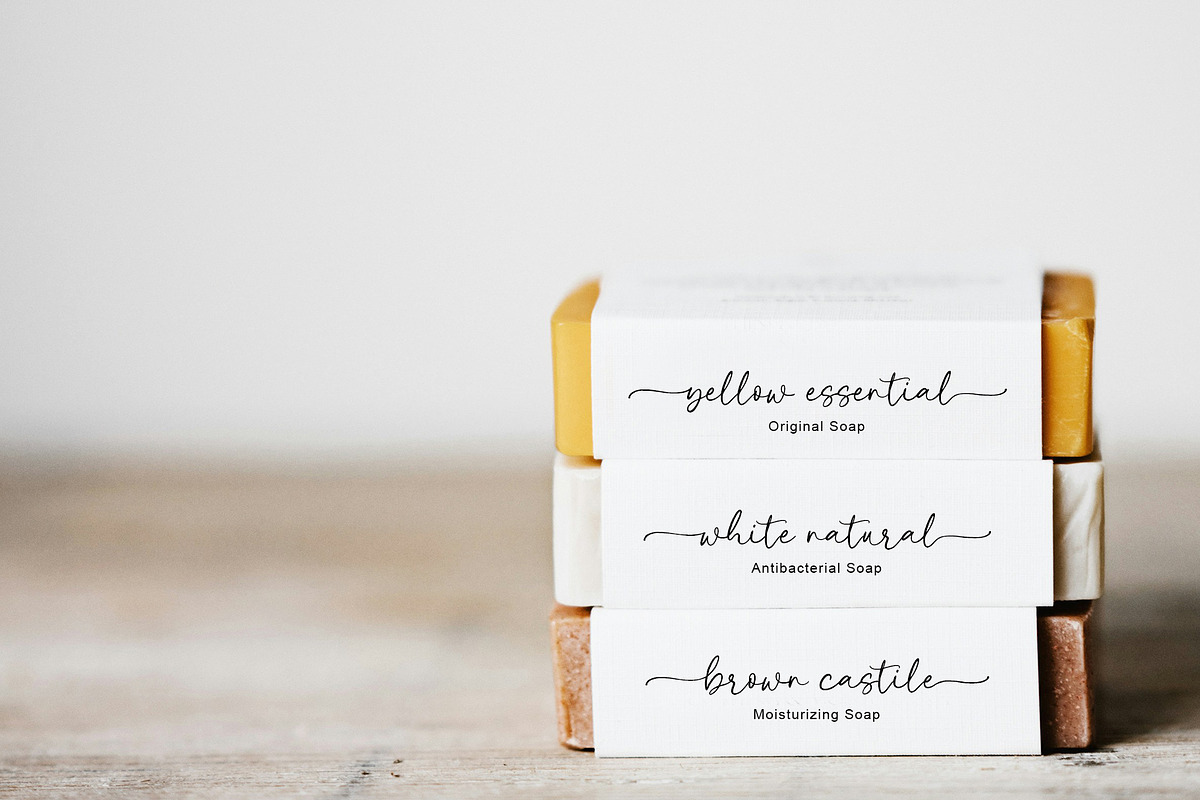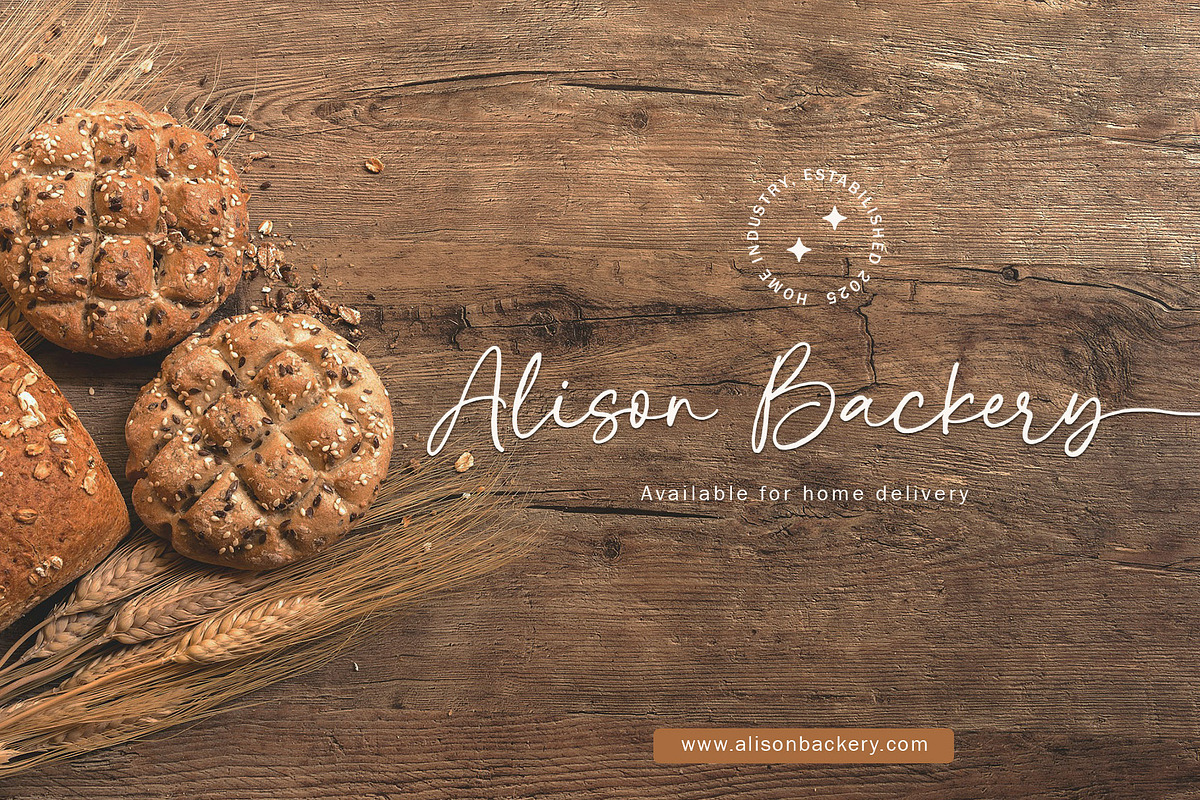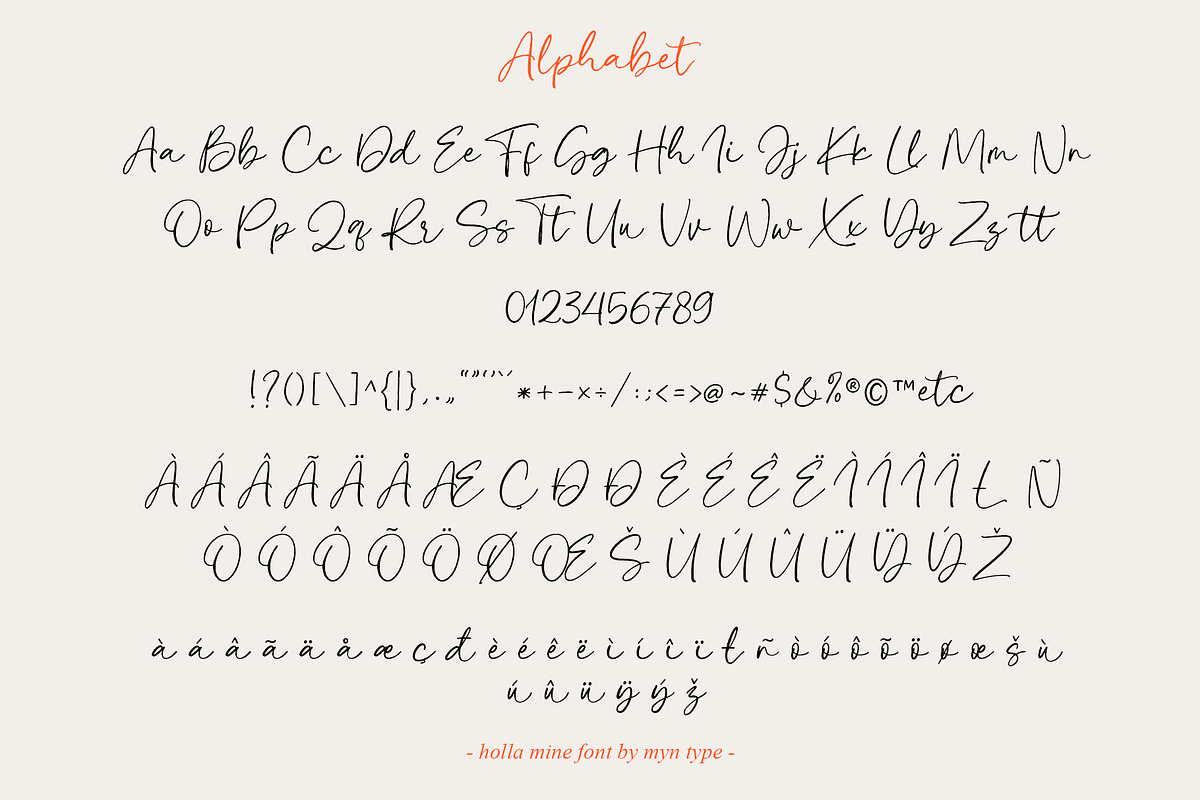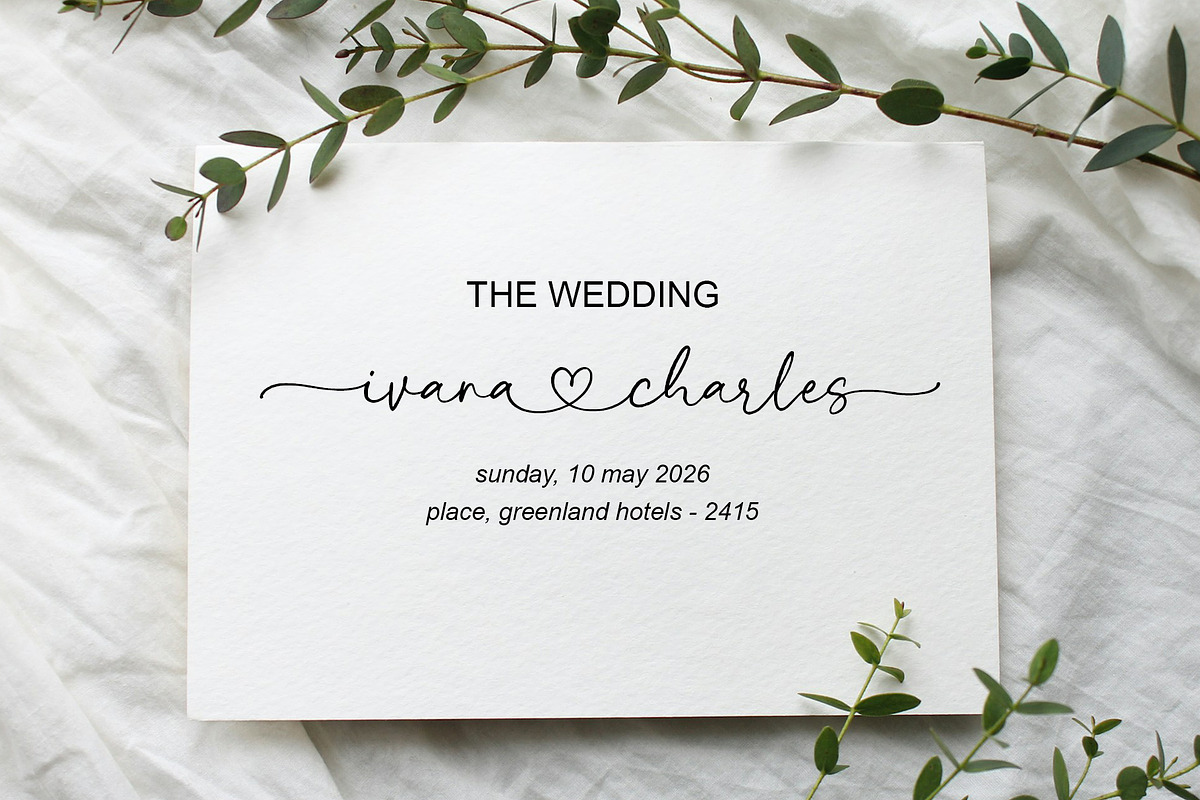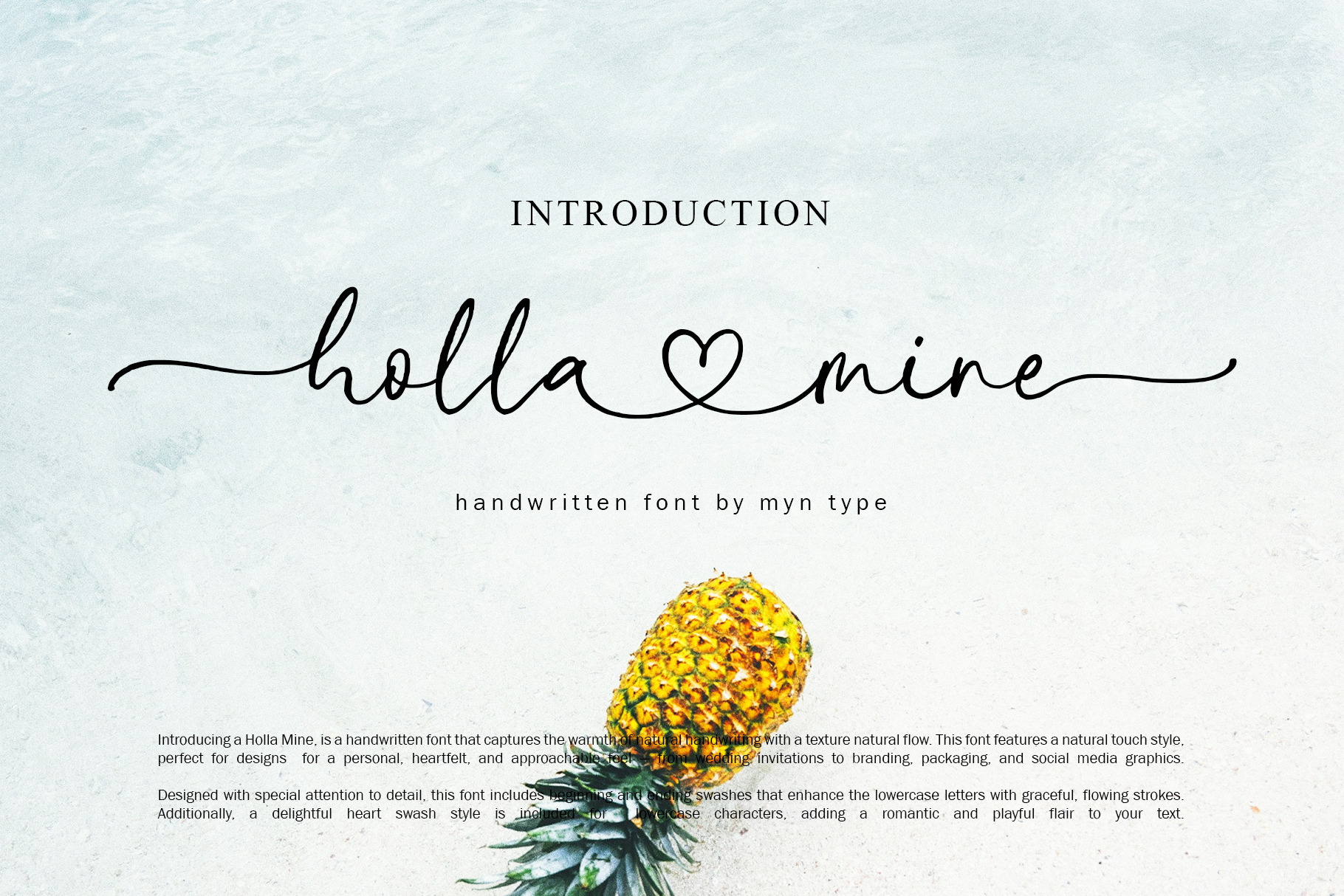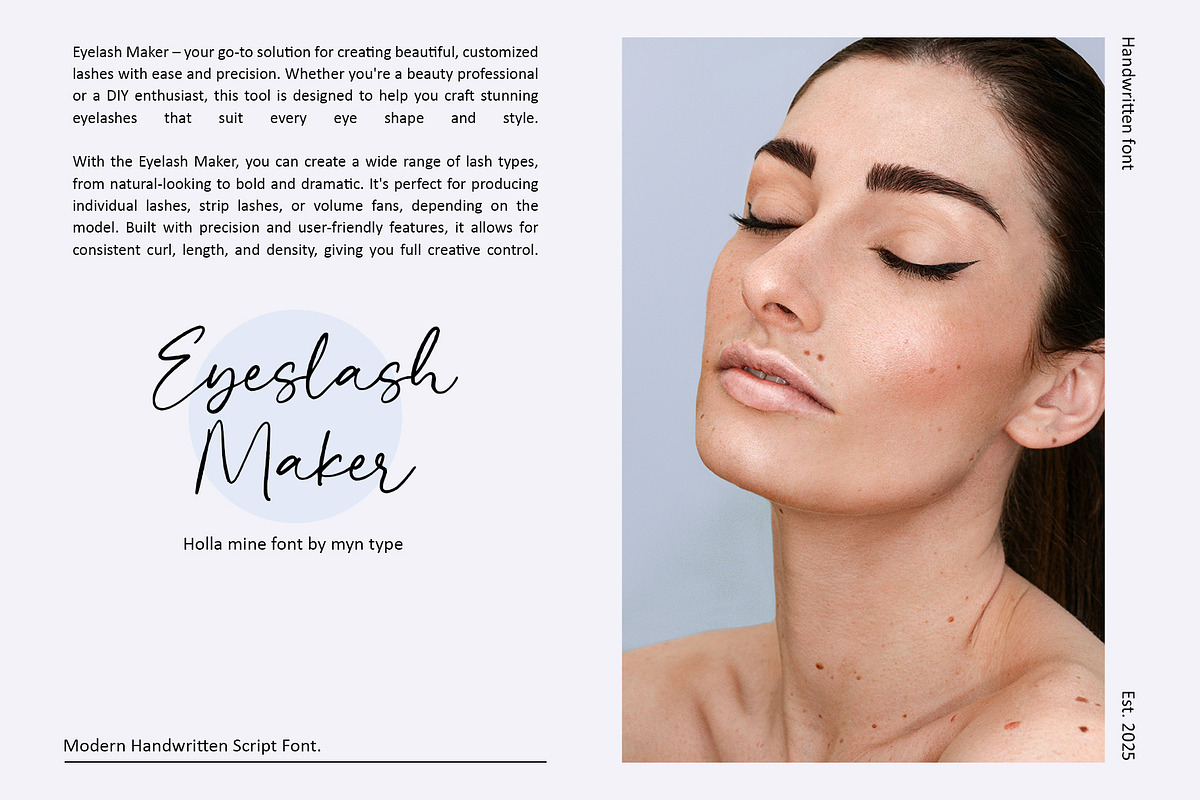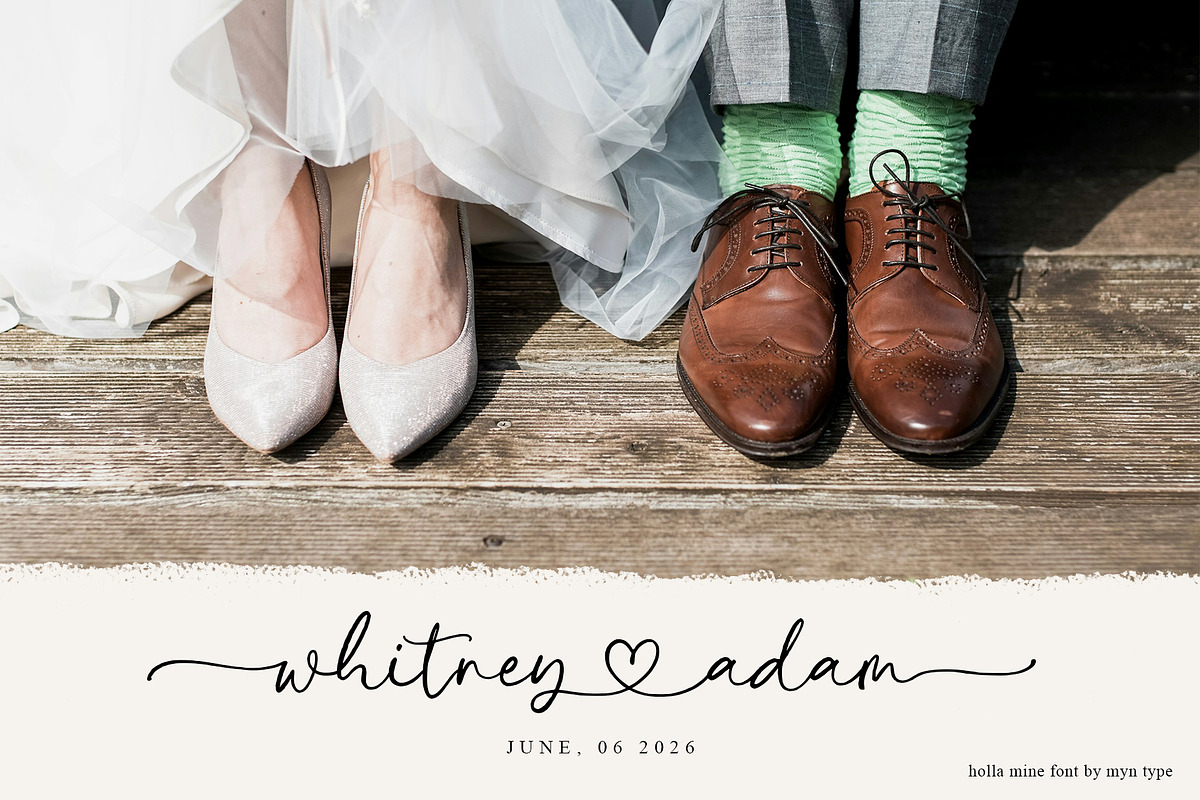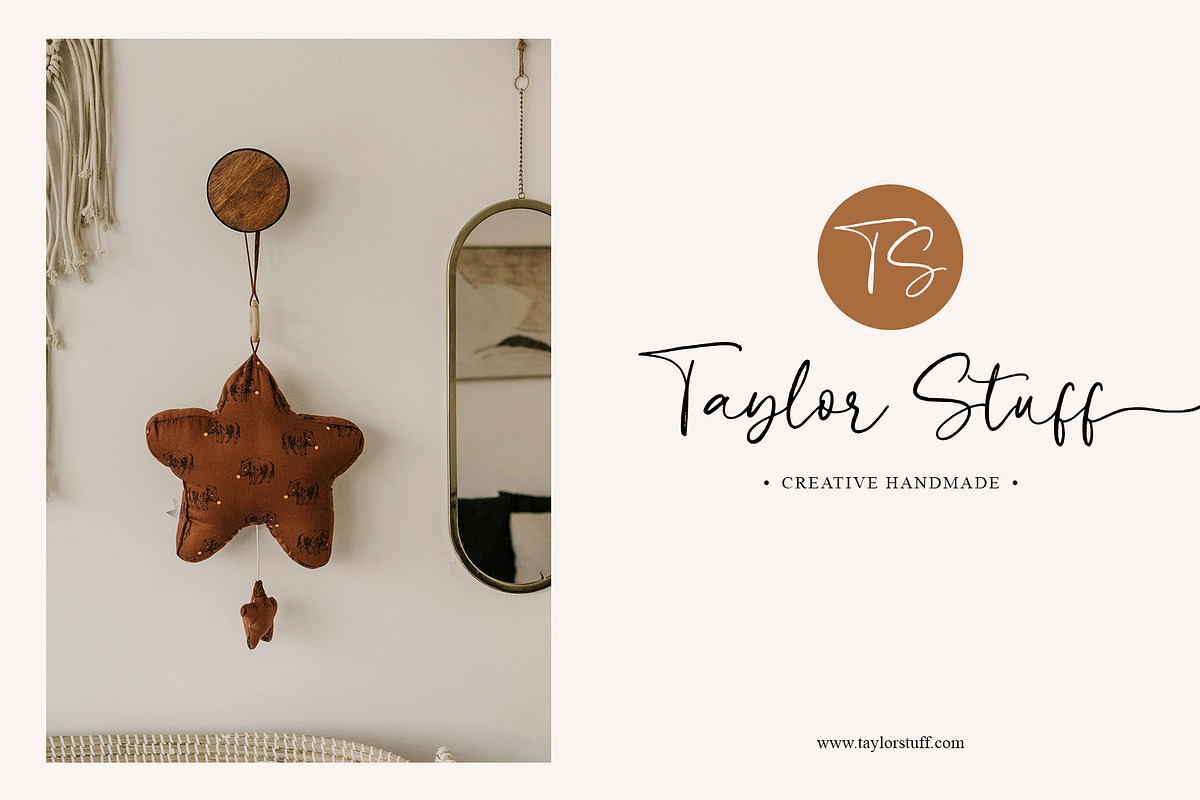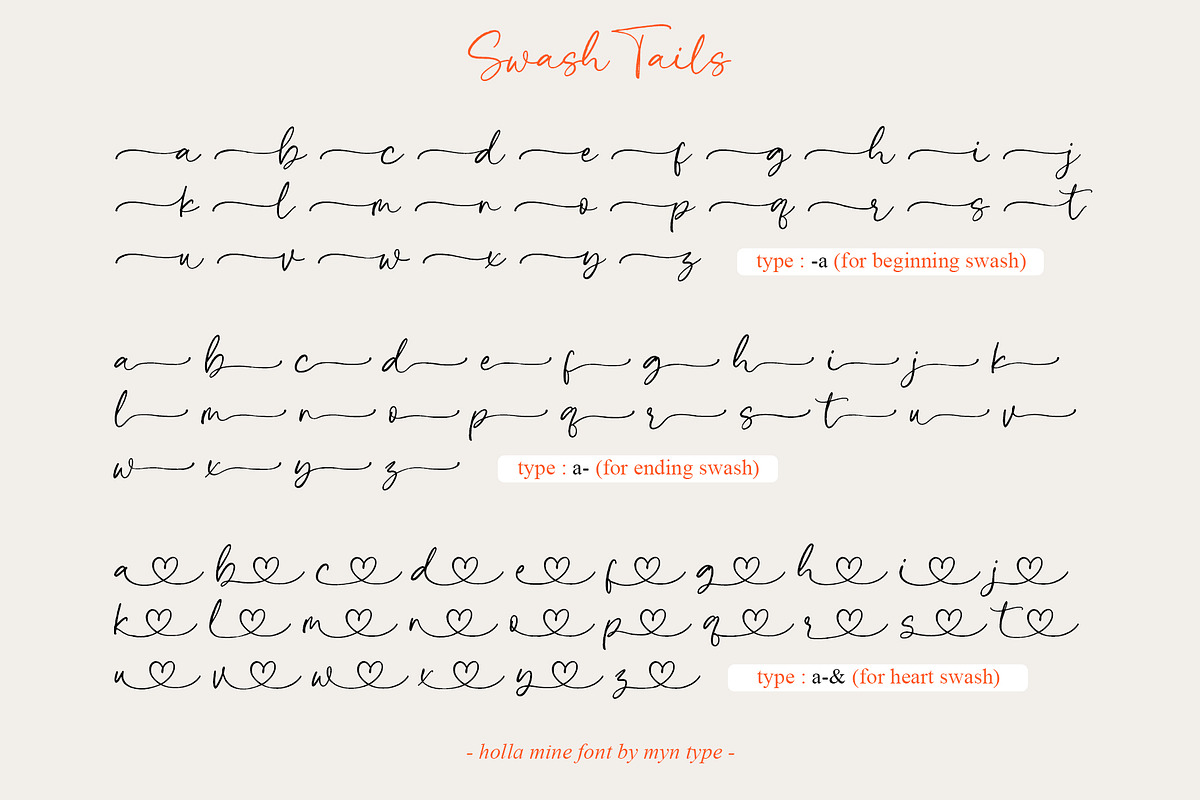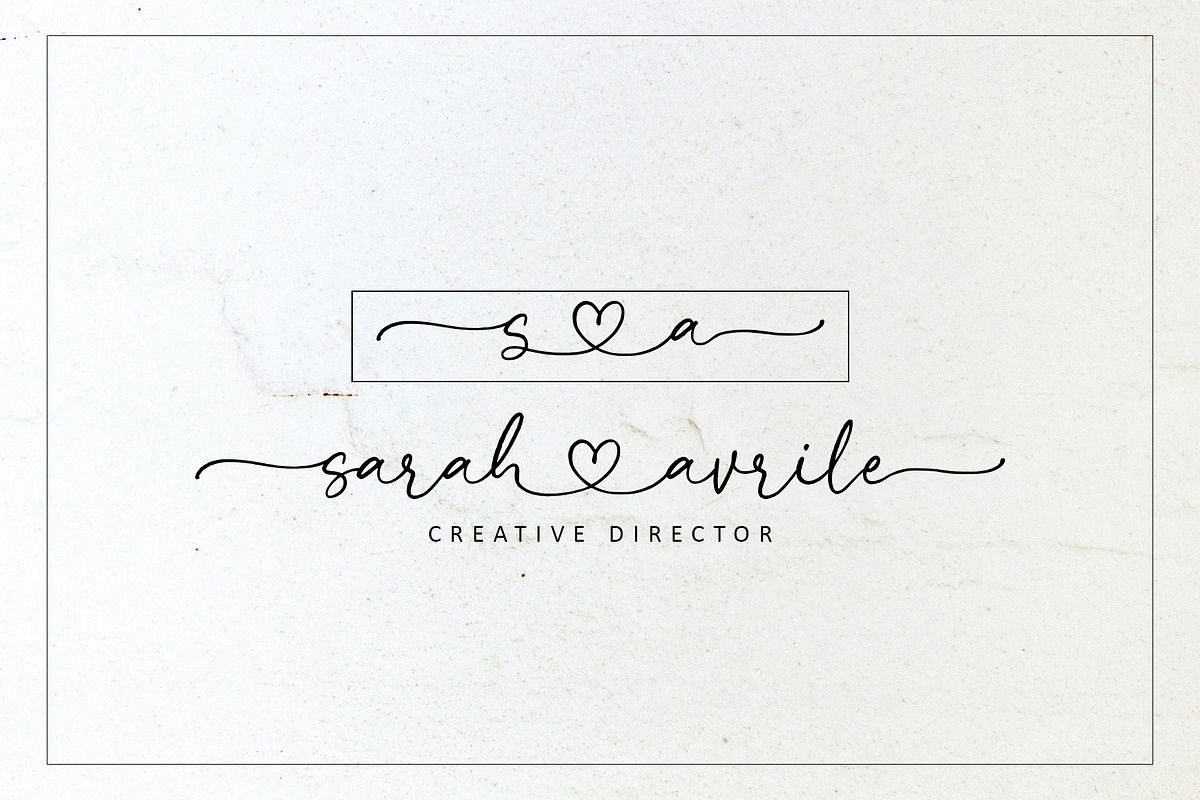
Holla Mine - Heart Swash Script Font
Just Coming, Holla Mine Font!
Holla mine is handwritten font that captures the natural texture of brush with pretty flow.
This font features with beginning, ending, and heart swash, making it perfect for designs that call for a personal, heartfelt, and approachable feel, from logo, wedding invitations, title book, cover, magazine, branding, packaging, and social media graphics.
Whether you're creating a love note, logo, or quote, this font brings a genuine, hand-drawn elegance to your designs.
How to use swash, you can see the page 10 & 12 of preview image. PLEASE NOTE, The swash is just for lowercase letter and the swash can’t connect with UPPERCASE letter.